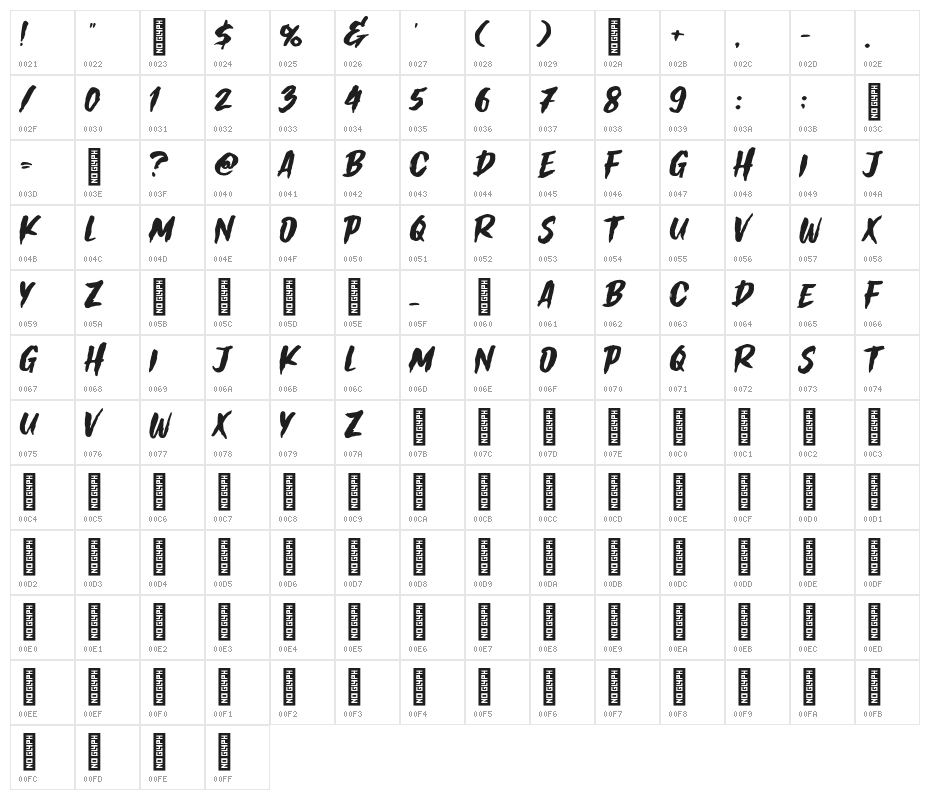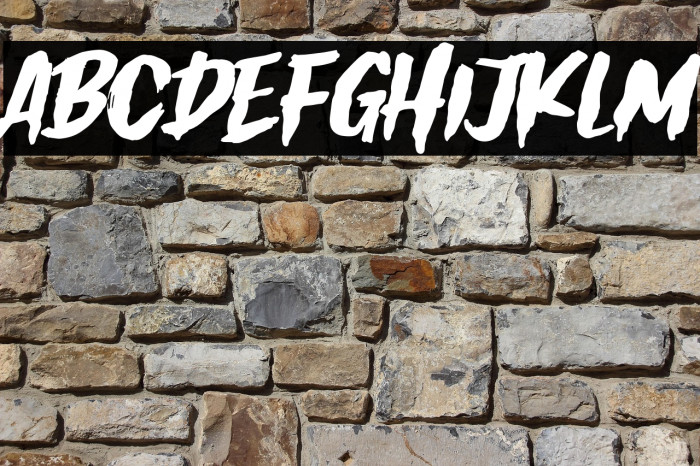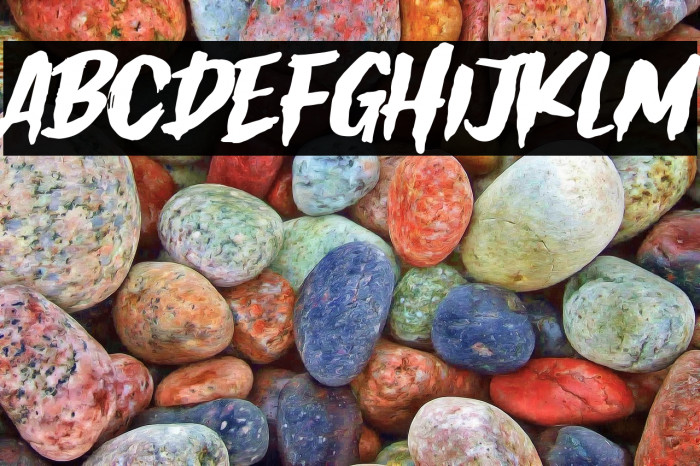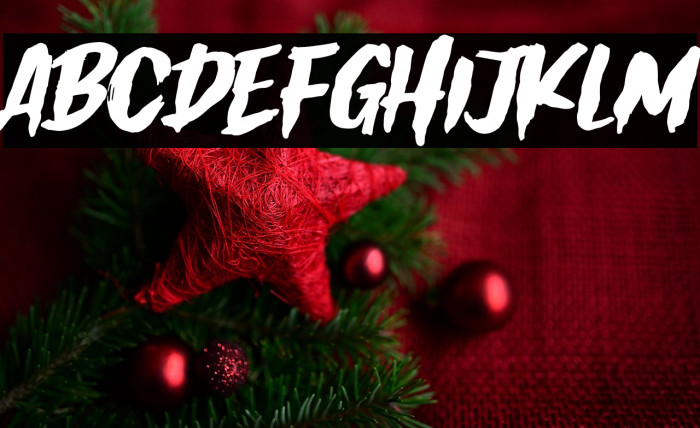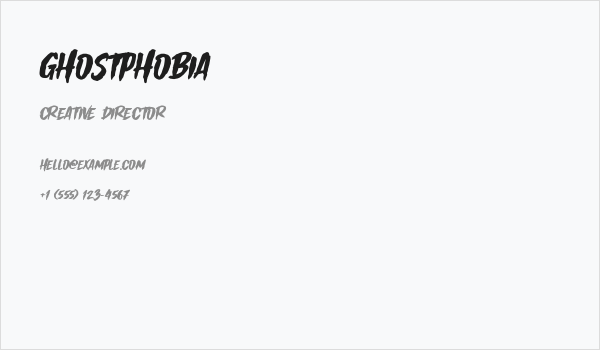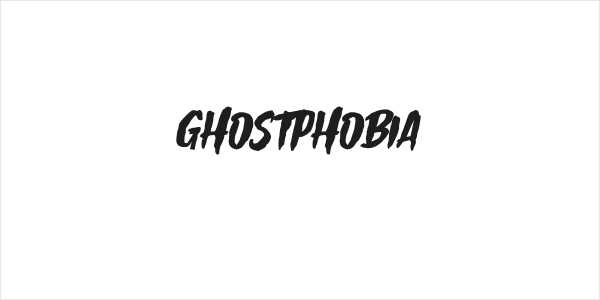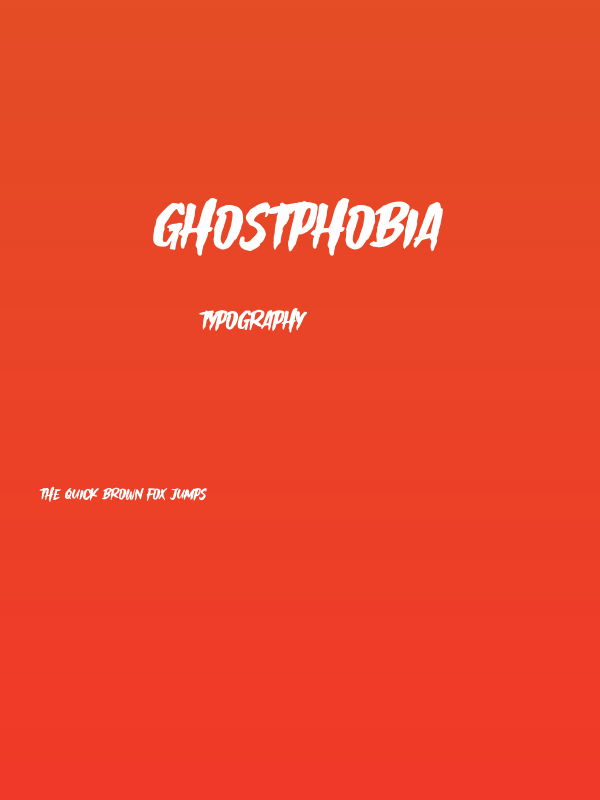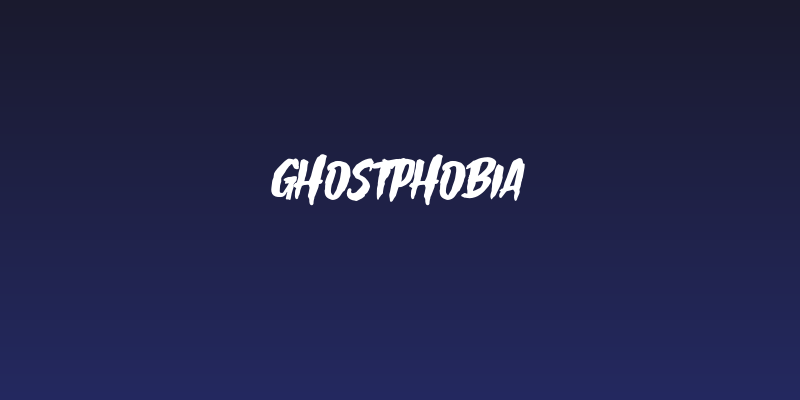
Ghostphobia Font
Ghostphobia Description
This font features a bold, brush-like style with a dynamic and energetic appearance. The characters are crafted with a rough, textured edge, giving them a hand-painted feel. The uppercase and lowercase letters maintain a consistent style, with exaggerated curves and sharp angles that add to the font's dramatic flair. The numbers and special characters follow the same design principles, ensuring a cohesive look across all elements. This font's unique style makes it stand out, perfect for projects that require a strong visual impact.
| Overall Style | Modern, Artistic |
| Proposed Projects | Ideal for posters, album covers, branding, and any design needing a bold, artistic touch. |